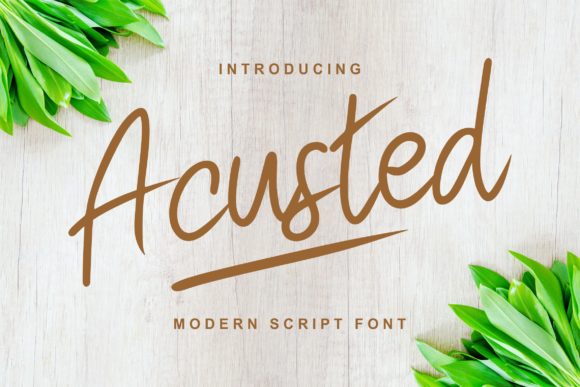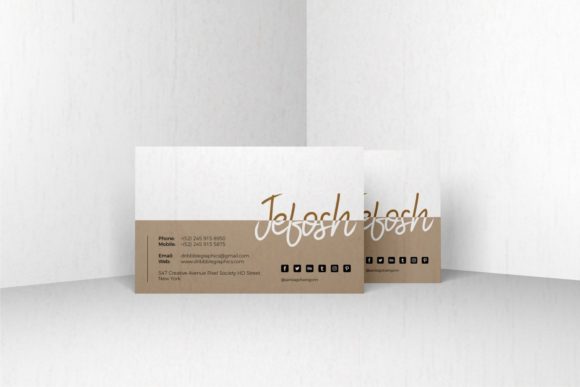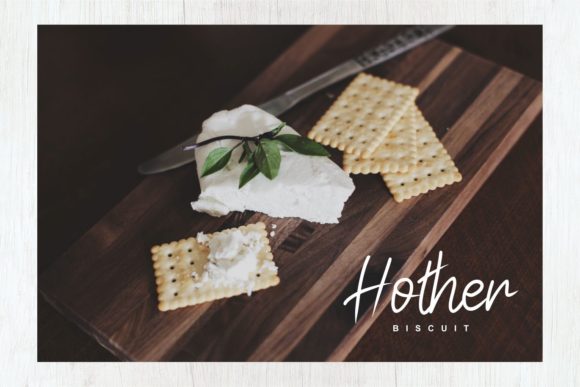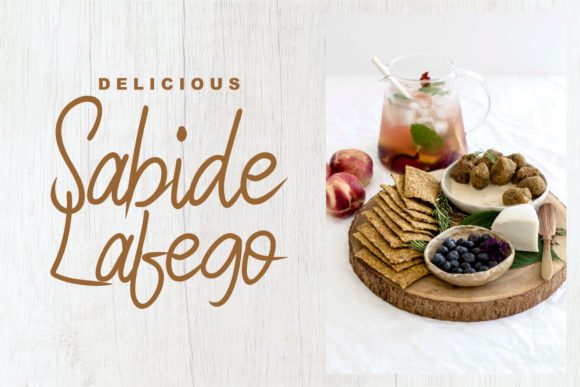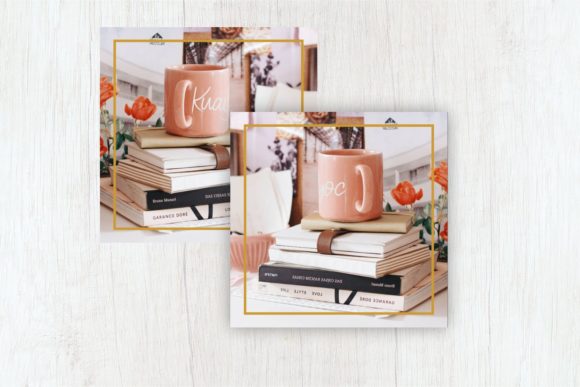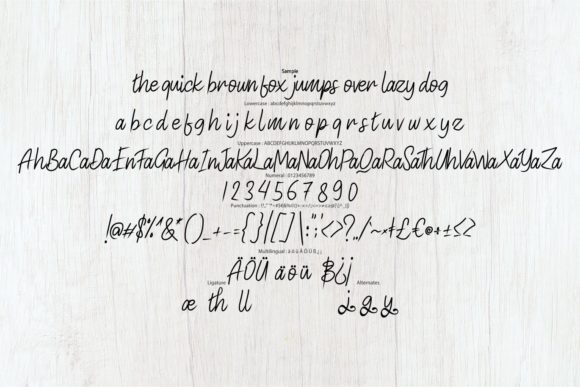
Acusted Font
About Acusted Font
Acusted is inspired by classic typography and brings its own unique style to any design project. Use this gorgeous and unique handwritten font to bring any DIY project to life!